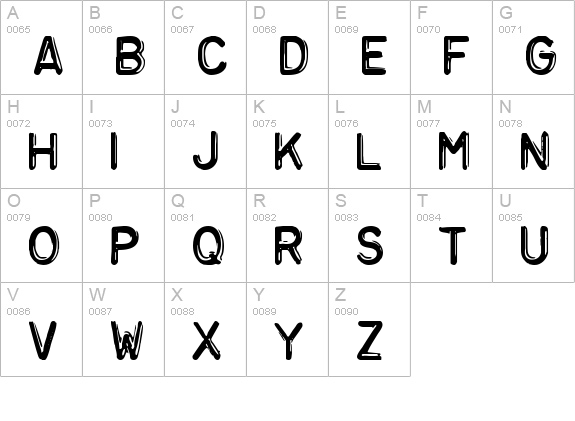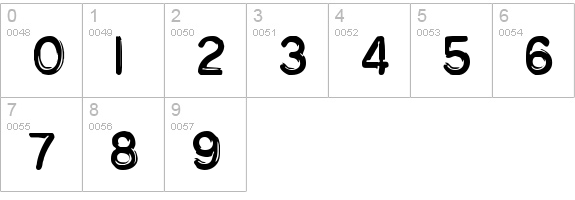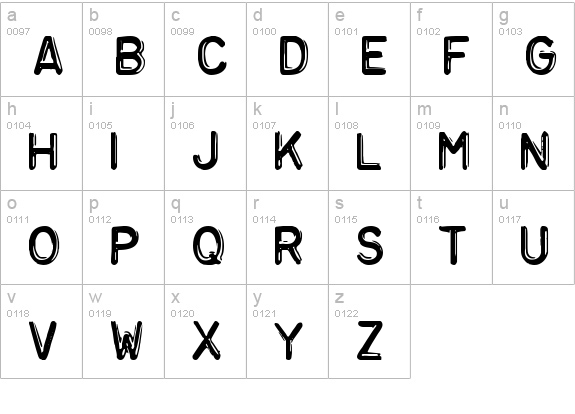
Embossing Tape 3 BRK Font Details
Embossing Tape 3 BRK font is a unique and eye-catching typeface that brings a touch of elegance and sophistication to any design project. With its bold and raised appearance, this font creates a striking visual impact that is sure to capture attention. Perfect for adding a tactile and dimensional element to your designs, Embossing Tape 3 BRK font is ideal for a wide range of applications, including branding, packaging, invitations, and more. Best of all, this stunning font is available for free download at FontsMarket.com. Simply visit the website and take advantage of this fantastic offer to enhance your creative projects with the distinctive style of Embossing Tape 3 BRK font. Download now and elevate your designs with this beautiful and versatile typeface.